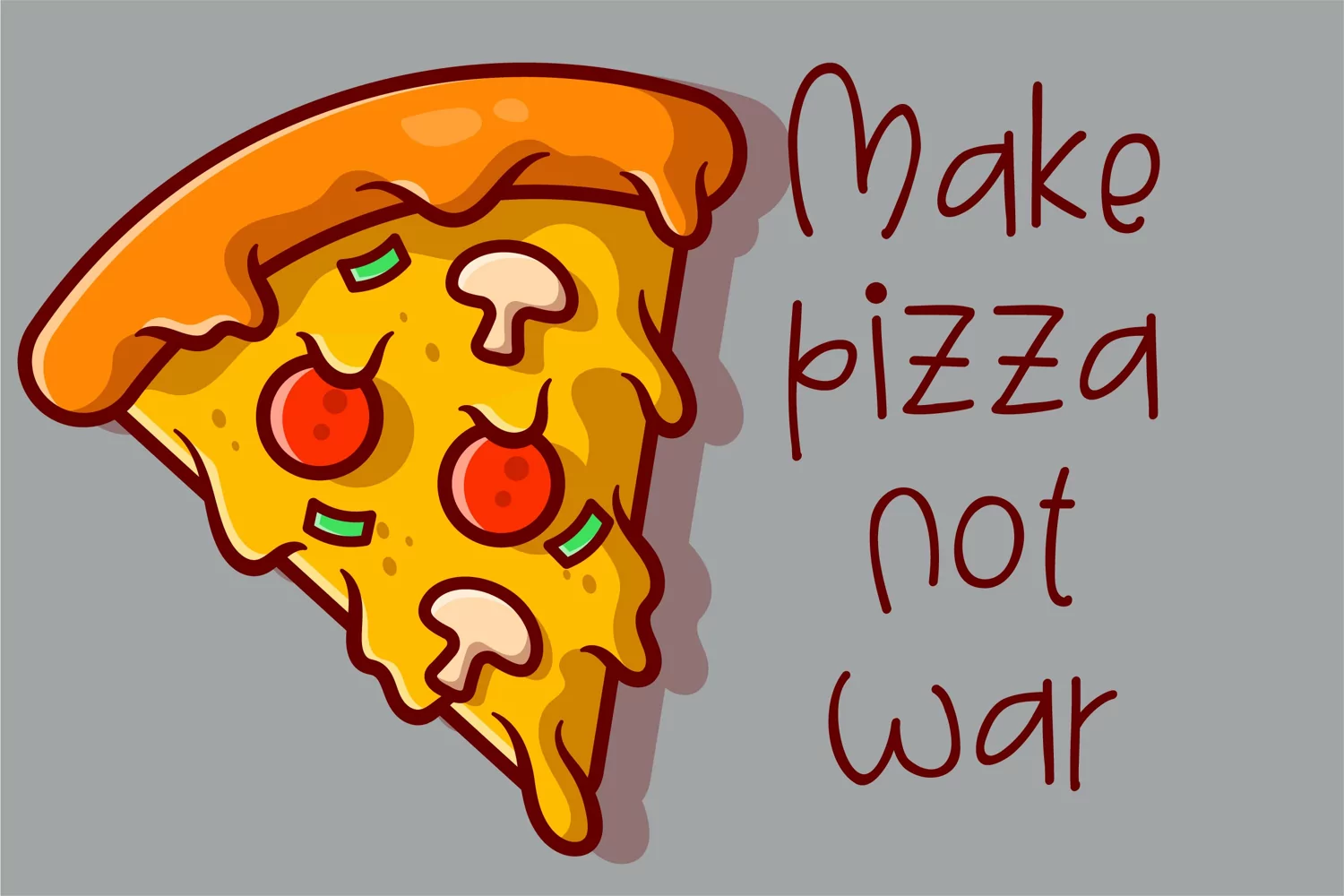
Beddar Cheddar is an adorable and whimsical script font perfect for any design you can think of. Add it with confidence to your creative projects, and notice how they capture everyone’s attention! Includes regular and bold.